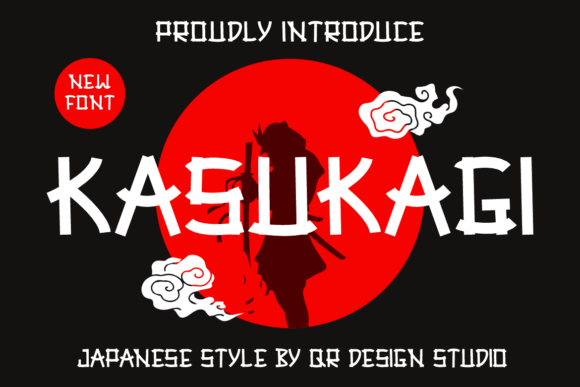
Step into the world of Japanese aesthetics with Kasukagi Font, a display font that echoes the strength and allure of the Land of the Rising Sun. With its bold and confident strokes, this font encapsulates the essence of tradition while exuding a modern flair. Each character, meticulously crafted with precision, carries the legacy of Japanese calligraphy, bringing a touch of authenticity to your designs.
Unleash the beauty of Japan's rich cultural heritage in your posters, headlines, and any creative project that seeks a distinctive touch. Kasukagi Font possesses the power to transform your designs into captivating expressions of art. Its versatility allows you to effortlessly blend the old and the new, creating captivating visuals that resonate with audiences worldwide.
Imagine the impact of Kasukagi Font on your posters, evoking a sense of timeless elegance that captures attention from afar. Its strong and commanding presence makes it the perfect choice for headlines, demanding attention and leaving a lasting impression. Whether you're a seasoned designer or just starting your creative journey, this font will elevate your projects to new heights of visual brilliance.
Let the charm of Japan inspire your designs and create masterpieces that transcend time and space. Kasukagi Font is your gateway to a world of visual storytelling, where tradition and modernity converge to create something truly extraordinary. Embrace the power of this authentic Japanese font and unlock the boundless potential of your creativity.